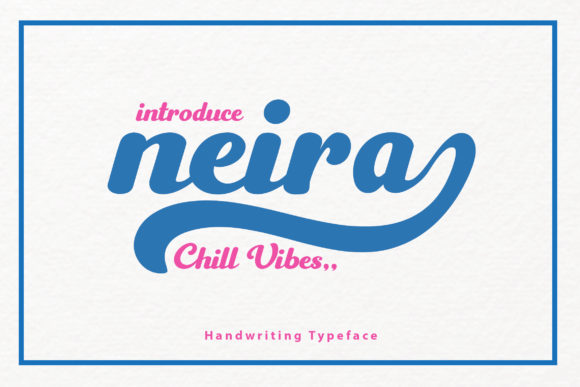
Prepare to be mesmerized by Neira Font, a retro-styled script font that embodies elegance and charm. Step into a world of sophistication where your designs will flourish with its captivating presence.
With Neira Font, you'll embark on a journey of artistry, transforming your ideas into visually stunning masterpieces. Its graceful curves and sweeping strokes will add a touch of refinement to your creations, leaving a lasting impression on your audience.
Imagine your wedding invitations adorned with Neira Font's delicate script, creating a sense of timeless romance that will be treasured for years to come. Enchant your social media posts with its eye-catching style, capturing the attention of your followers and leaving them in awe.
Neira Font's versatility knows no bounds. Whether you're designing logos, posters, flyers, or any other marketing material, it will elevate your projects to new heights of creativity. Its timeless beauty will add a touch of class to any endeavor, leaving a lasting impression on your audience.
Neira Font is more than just a font; it's an experience that will ignite your passion for design. Its user-friendly nature makes it accessible to both seasoned professionals and those just starting their creative journey. Unleash your imagination and watch as Neira Font transforms your designs into works of art.